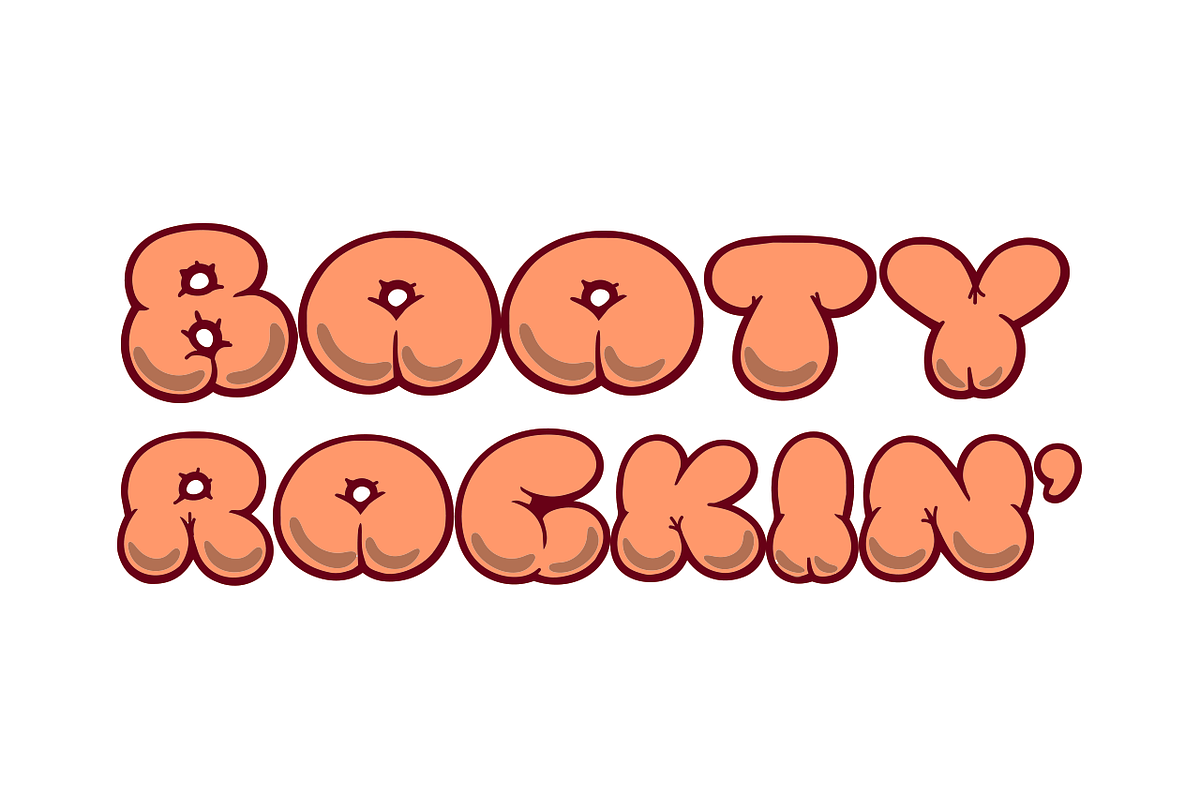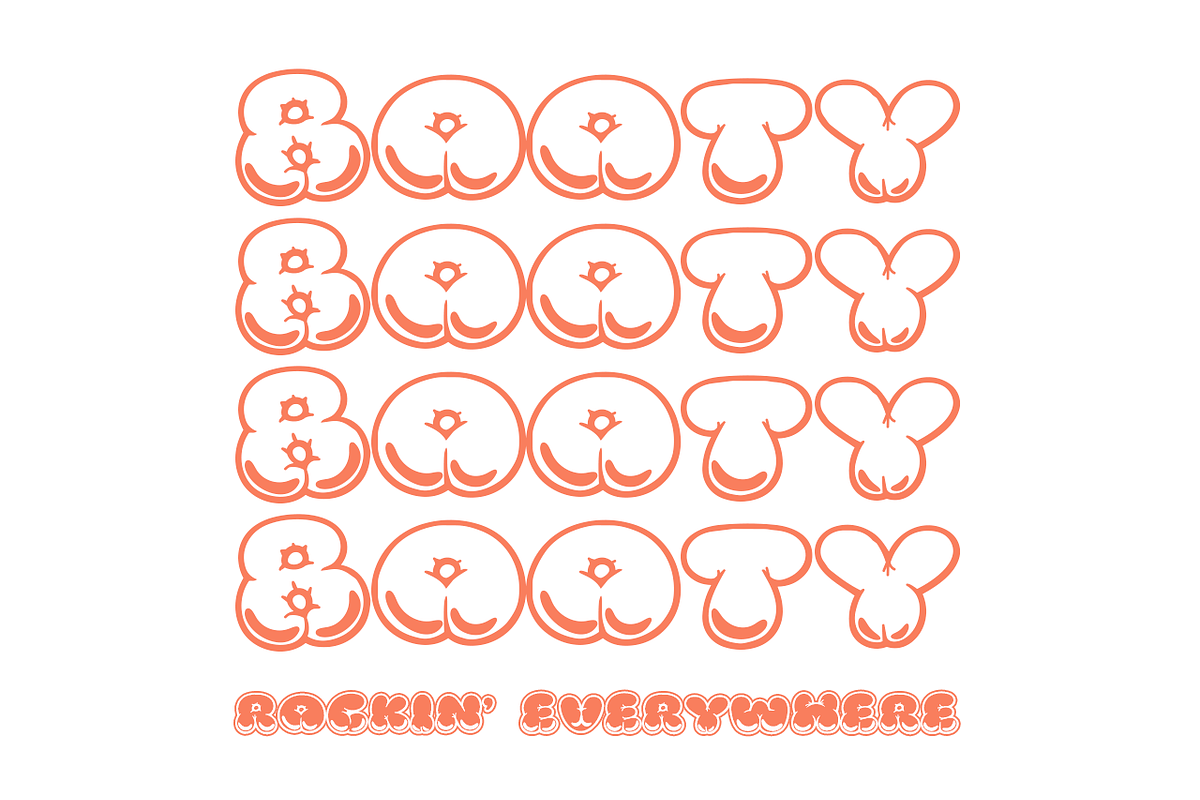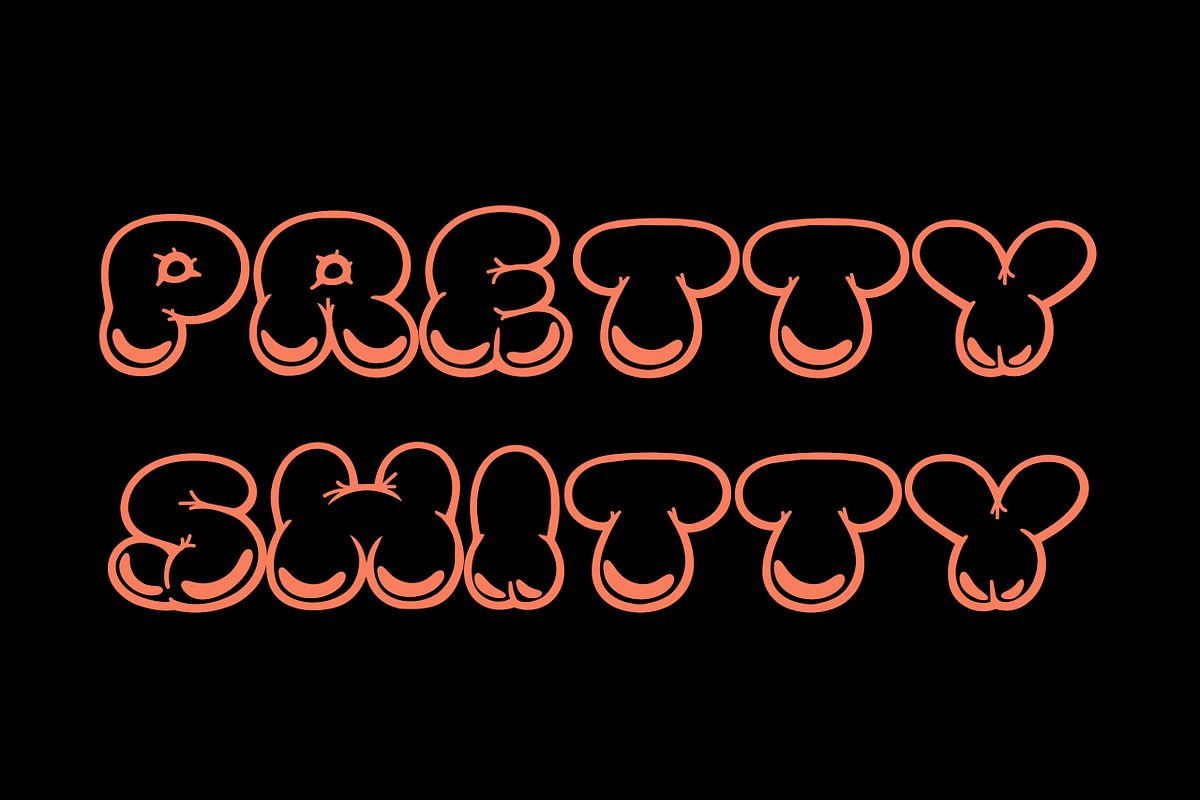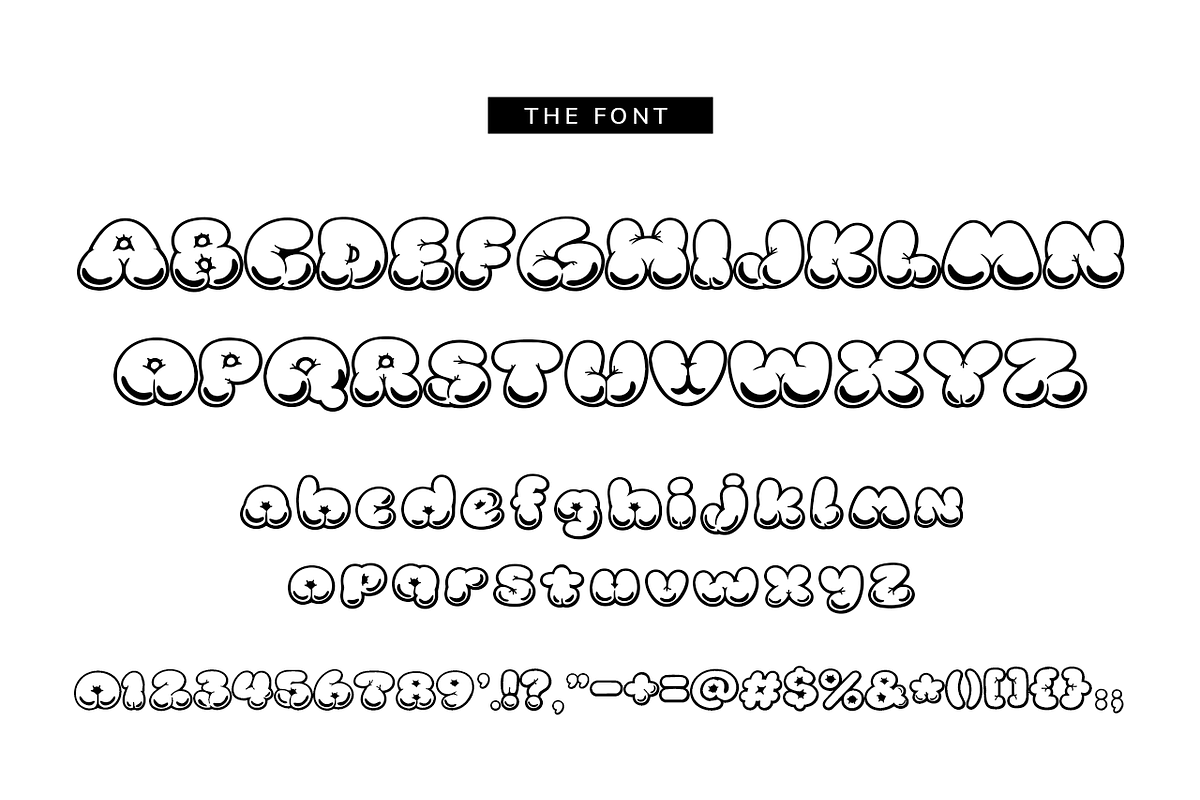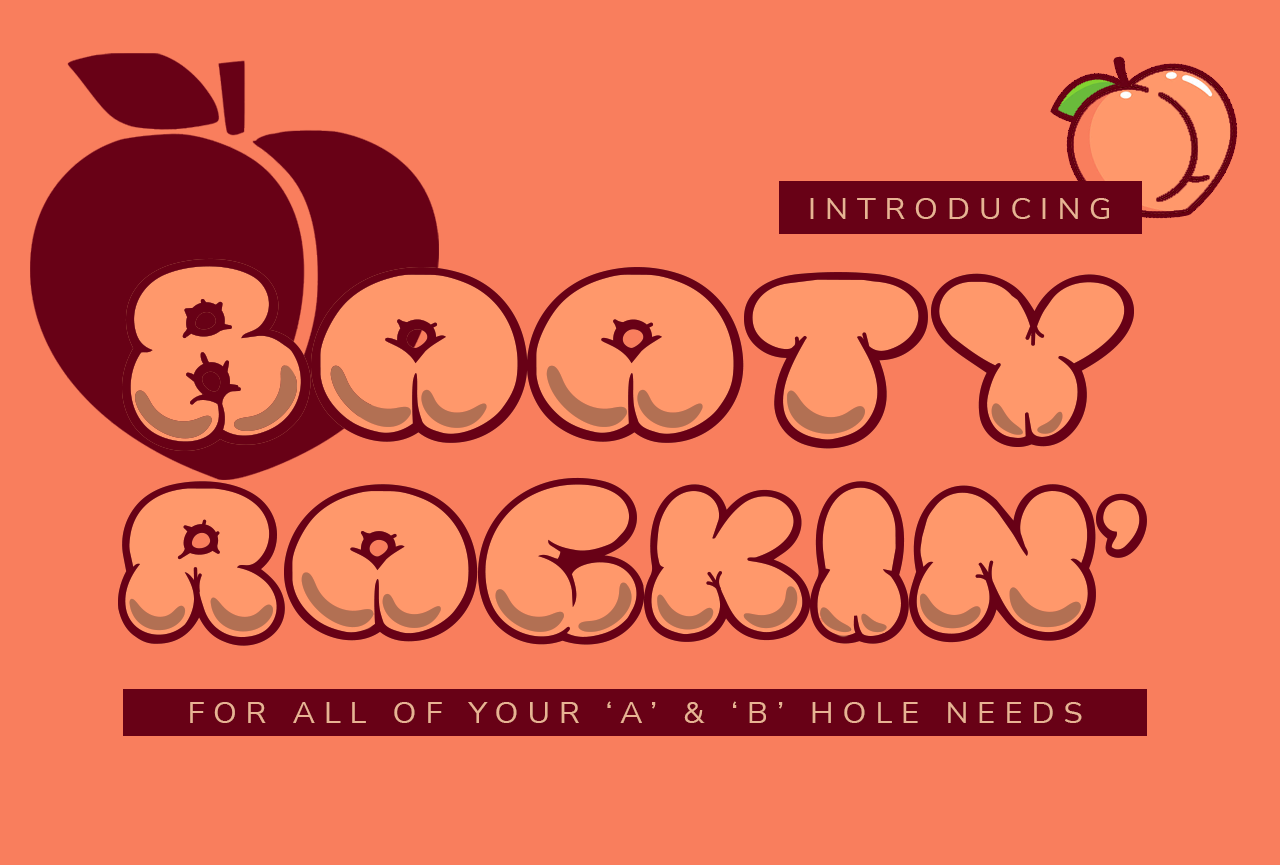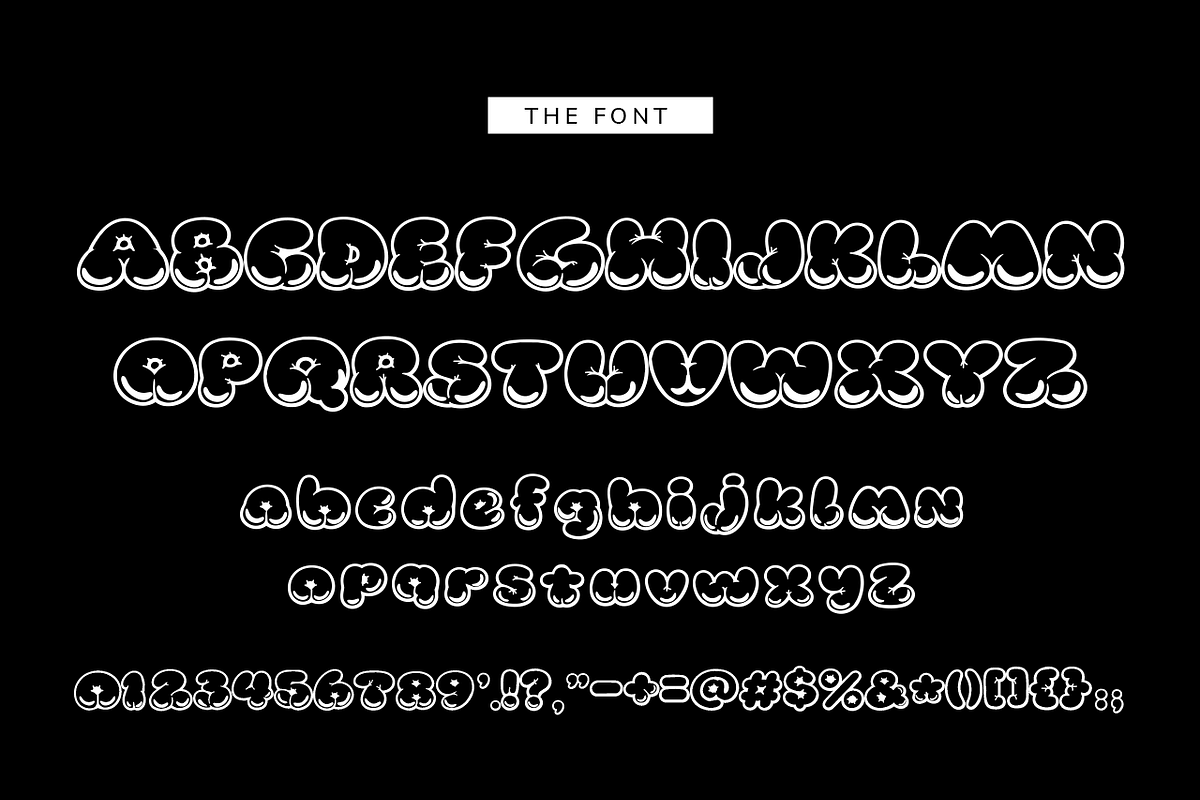
Booty Rockin' Font
Get ready to shake things up! 🍑💥
Booty Rockin' is a bold, chunky display font with a playful hand-drawn attitude and plenty of personality. With its thick, irregular letterforms, quirky shapes, and energetic street-art feel, this font was made to stand out, have fun, and make some noise.
Perfect for designs that need a little extra attitude, Booty Rockin' brings a fun, rebellious vibe to everything from posters and apparel to stickers, logos, social media graphics, invitations, packaging, and more.
The deliberately imperfect shapes give it that authentic hand-lettered look while the heavy, blocky forms keep your words big, bold, and highly readable.
✦ Perfect For:
Logos & branding
T-shirts & apparel
Posters & flyers
Stickers & decals
Cricut & cutting projects
Sublimation & print-on-demand
Children's designs
Party invitations
Packaging & product designs
Headlines & eye-catching display text
Whether you're designing something funky, funny, bold, rebellious, or just downright cheeky, Booty Rockin' is ready to bring the personality. 🍑